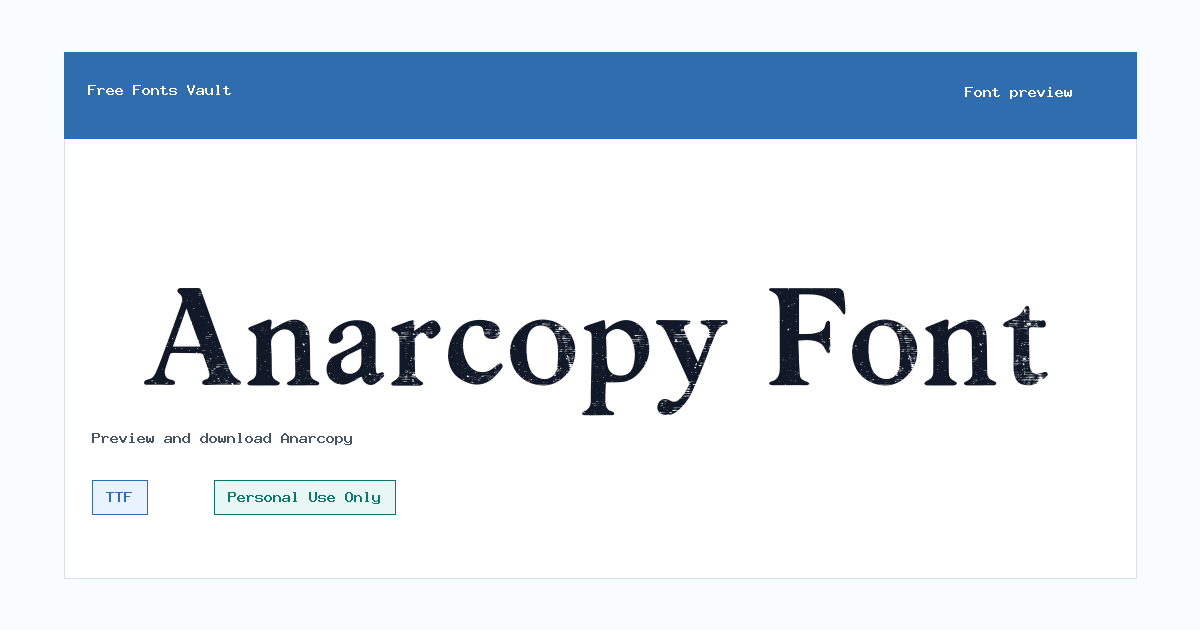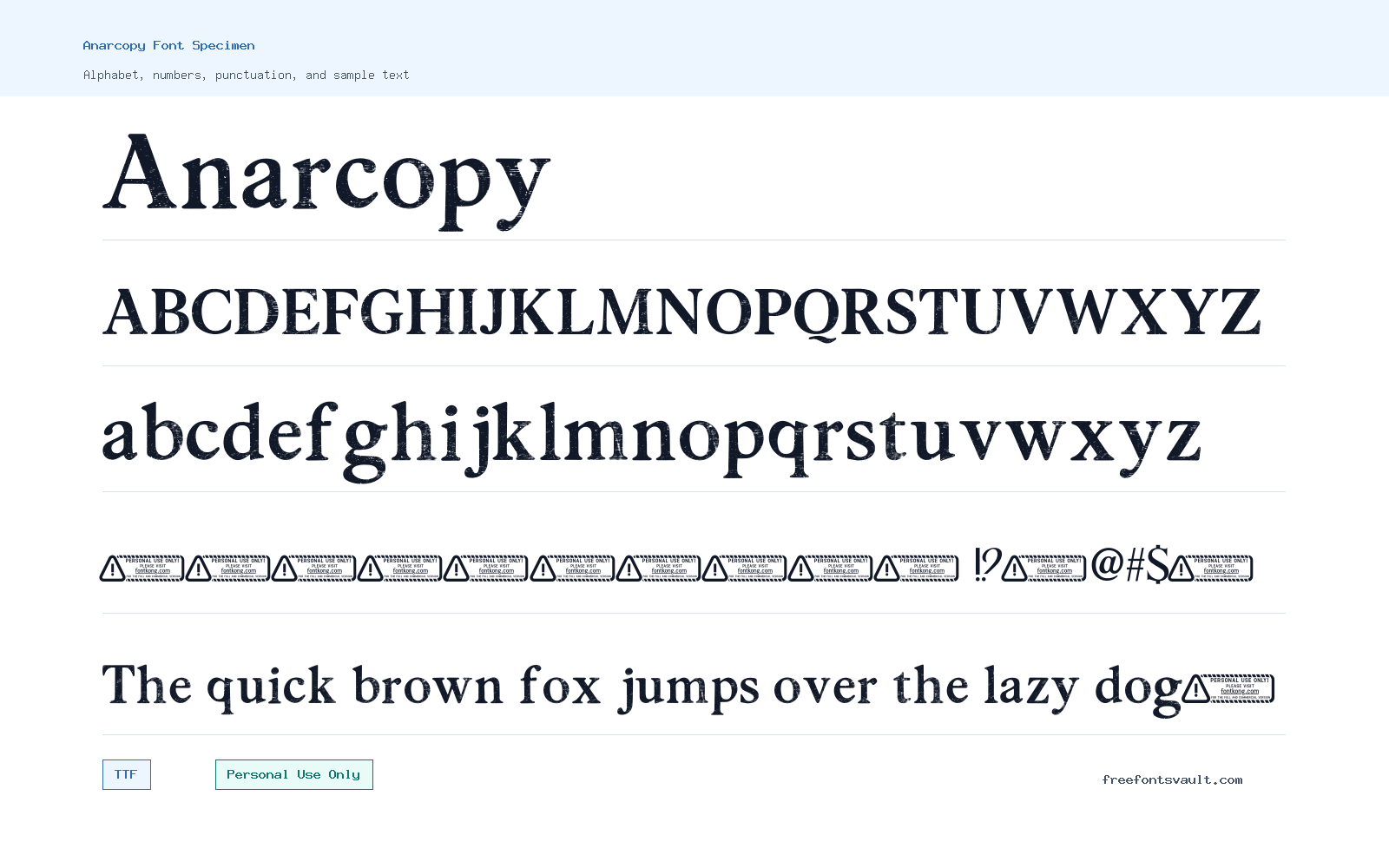
Anarcopy
Anarcopy is a personal-use font family with a regular TTF file for designers who want a stronger display style for short text. Use the preview tool to test your own words before downloading, especially if you plan to use it in a headline, poster, logo draft, or social graphic.
Anarcopy works best as a display font rather than a long-reading text face. The name suggests an edgy tone, so it is a better fit for bold, compact text settings where the font can carry the mood without needing many supporting elements. Try it with short words, event titles, album-style artwork, gaming graphics, sticker concepts, or experimental poster layouts. Keep the text brief and give the letters enough space so the shape of the font stays clear.
Because only the regular style is listed, you should test size, spacing, and contrast instead of relying on extra weights. A single-style font can still be useful, but it needs careful layout choices. Pair Anarcopy with a simple sans serif or clean serif for body copy, descriptions, dates, and contact details. Avoid setting long paragraphs in it, and check small sizes before using it on mobile graphics, thumbnails, or navigation labels. The downloadable file is in TTF format, which is widely supported in design apps and many desktop font managers.
- Regular style with normal weight for straightforward display use
- Best suited to short text where the font can stay readable
- Works well when paired with a simpler font for supporting copy
- Posters, cover graphics, and title treatments
- Social media artwork, thumbnails, and banners
- Sticker concepts, merchandise mockups, and personal design tests
- Short headings that need a stronger visual tone
What is Anarcopy best used for?
Anarcopy is best for short display text such as posters, titles, social graphics, mockups, and personal creative projects. It is not ideal for long paragraphs.
Should I use Anarcopy for body text?
Use it carefully for body text. It is better for short headings and visual words. For longer reading, pair it with a simpler text font.